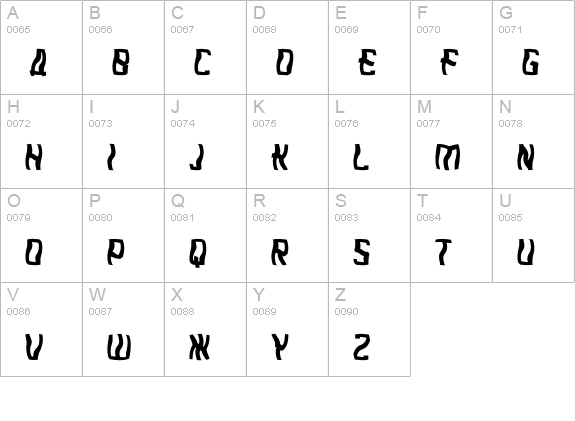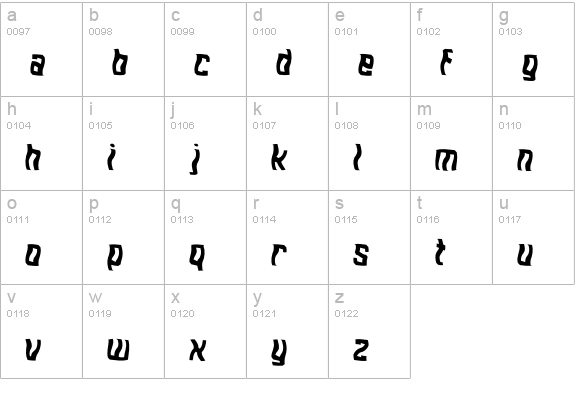
Aleksei-Disturbed Font Details
Aleksei-Disturbed font is a bold and eye-catching typeface that exudes a sense of edgy sophistication. With its sharp angles and unique design elements, this font is perfect for making a statement in your projects. The Aleksei-Disturbed font is free to download at FontsMarket.com, allowing you to add a touch of daring style to your designs without breaking the bank. Whether you're creating posters, logos, or social media graphics, this font is sure to stand out and leave a lasting impression. Don't miss out on the opportunity to elevate your designs with the Aleksei-Disturbed font - download it for free today!